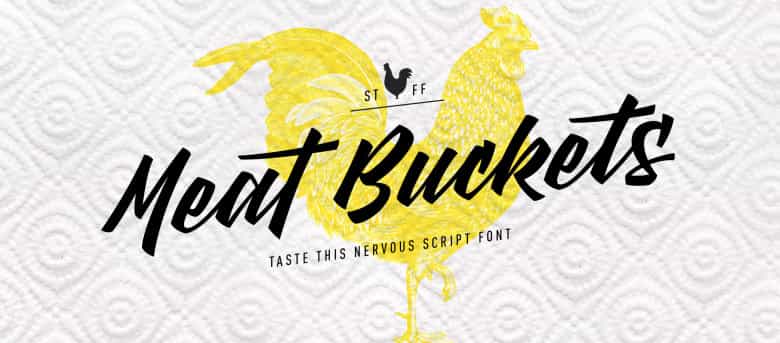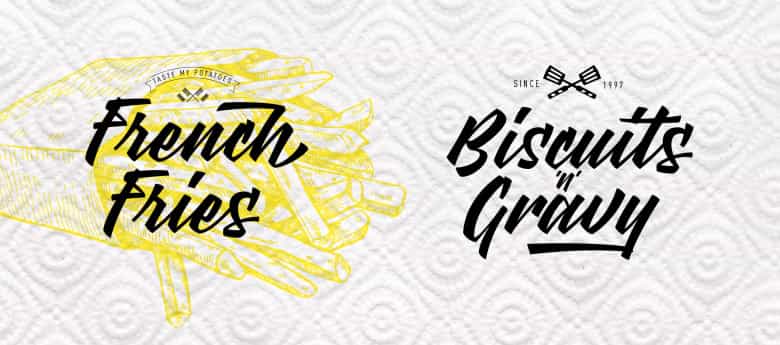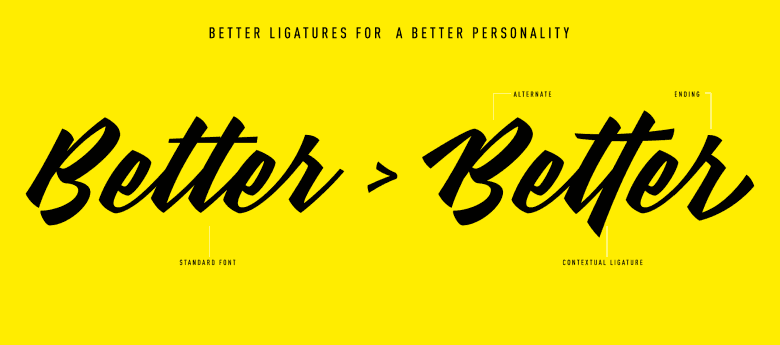
Meat Buckets for example is in vain with the actual retro appeal but it has an unsettling nervous typeface. It has over 86 of new typefaces, principally composed of alternative characters, contextual ligatures, and underlining options.